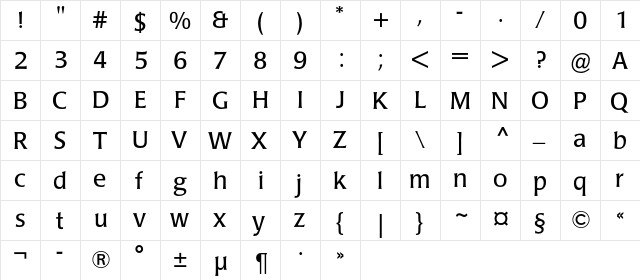
LaudatioC Regular
Design Context for LaudatioC Typeface
LaudatioC offers clean, dependable letterforms without strong stylistic allegiance, making it a practical choice for designers who need flexibility.
Pro Tip: Pair LaudatioC with a font of contrasting weight or personality to build a more expressive typographic hierarchy.